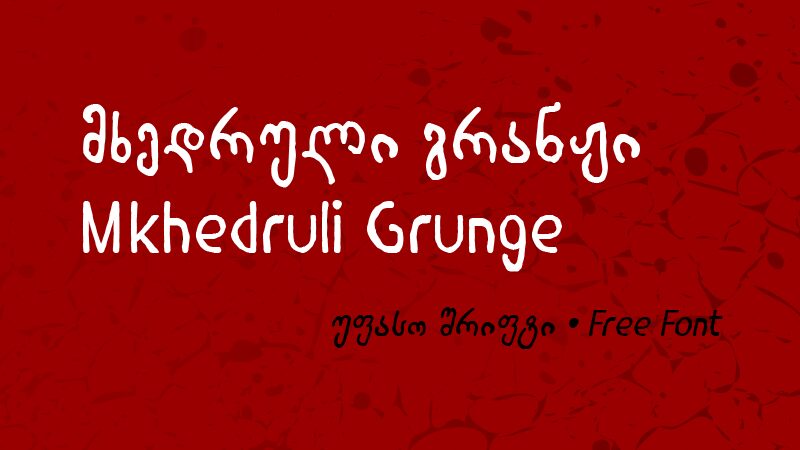
Mkhedruli Grunge font, designed by GGBotNet, embodies a unique handwritten style that exudes an edgy charm. Its boldly defined strokes create a striking visual presence, while the playful irregularities add a touch of authenticity and character. This font feels both contemporary and timeless, making it perfect for projects that desire a personal yet artistic flair.
With its expressive nature, Mkhedruli Grunge is ideal for eye-catching posters, expressive branding endeavors, or creative websites aiming for a distinctive vibe. The dynamic shapes facilitate a sense of movement and energy, making it suitable for anything from music events to trendy lifestyle brands. Engaging and versatile, this font invites creative exploration while leaving a lasting impression on audiences.